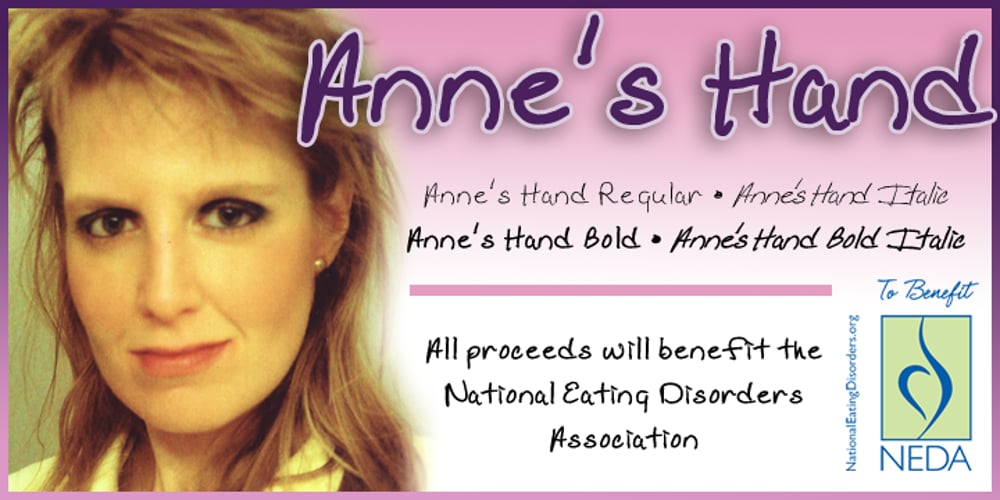
Anne’s Hand
Anne’s Hand font
Anne’s Hand Font Family was designed by Richard Hubbard and published by National Eating Disorders Assn. Anne’s Hand contains 4 styles and family package options. Anne’s Hand is a custom handwriting font of Anne Hubbard, who tragically lost her battle with anorexia nervosa this past January. Anne loved to write, so her brother Richard designed a custom font of her handwriting as a tribute to her memory. All proceeds from its sale will go to the National Eating Disorders Association to support programs and services like the NEDA Navigators and Loss Support Network, programs that many families count on for support.